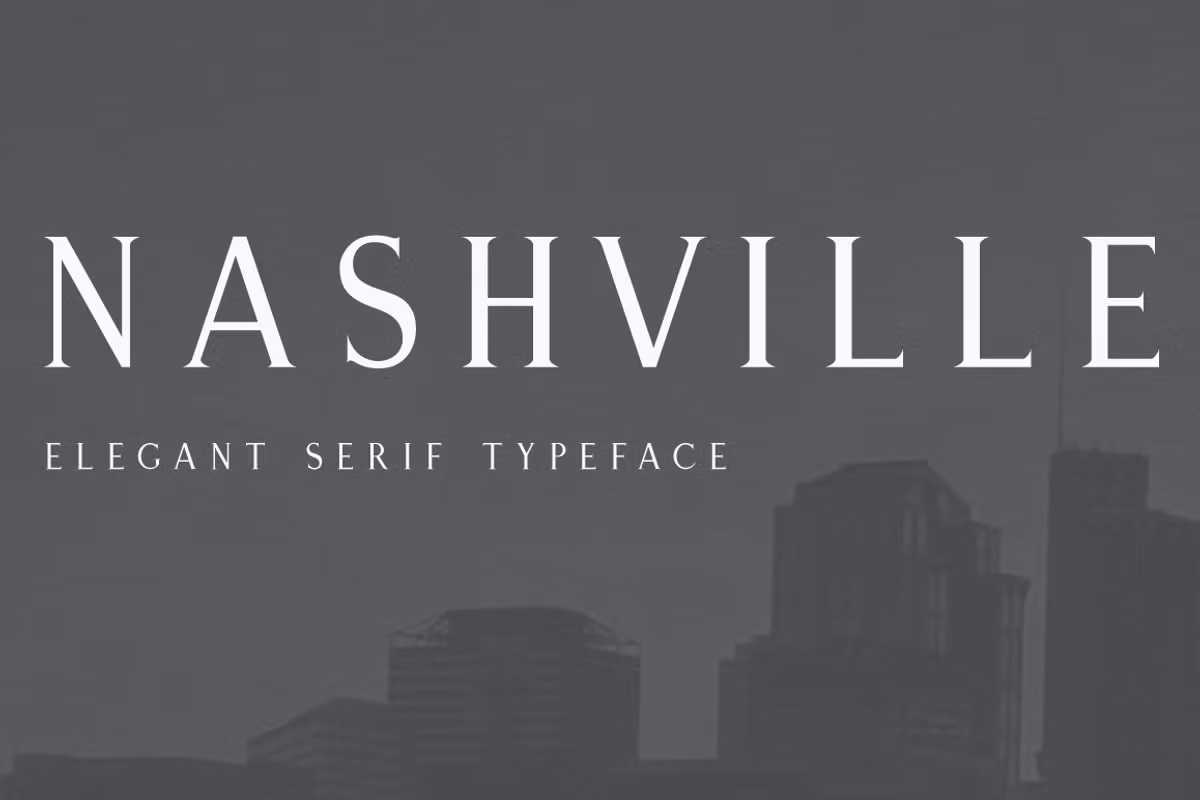
Nashville | Elegant Serif Typeface Free Download
Nashville | Elegant Serif Typeface Free Download is a sophisticated and timeless serif font designed to bring an air of elegance and class to any design project. Featuring refined serifs, graceful letterforms, and modern proportions, Nashville is perfect for high-end branding, editorial layouts, luxury packaging, invitations, and more.
With its clean lines and balanced design, this font offers both readability and style, making it a versatile choice for everything from website headings and logos to print materials and creative projects. Whether you're working on a fashion brand, an upscale event, or a premium product, Nashville adds a touch of luxury and sophistication.